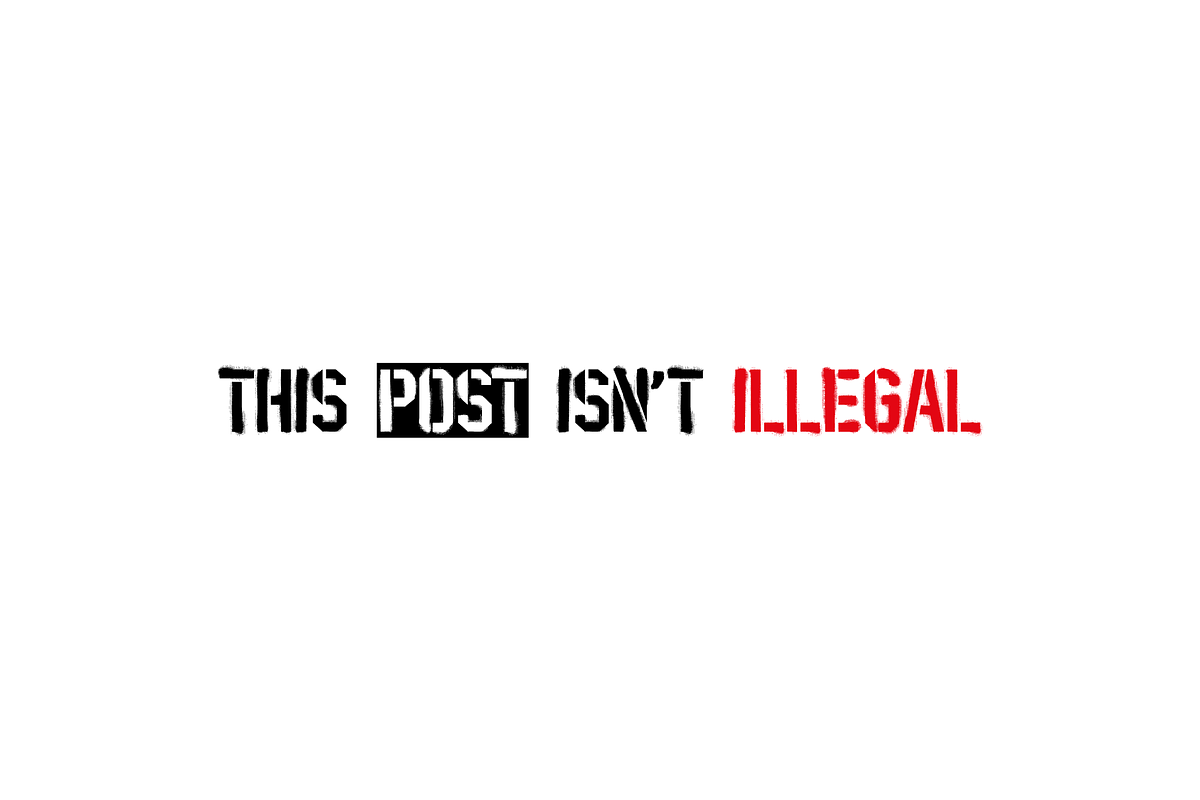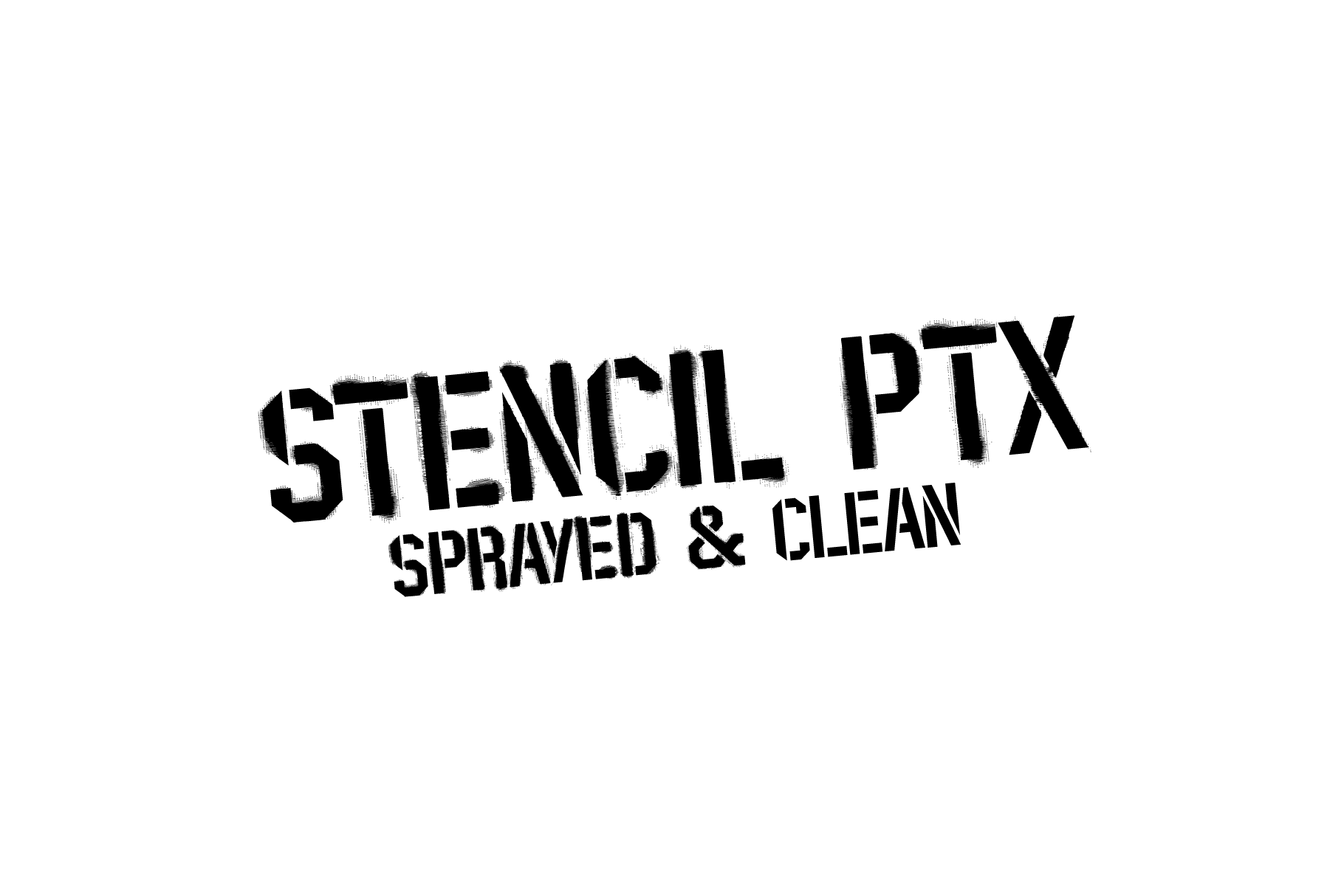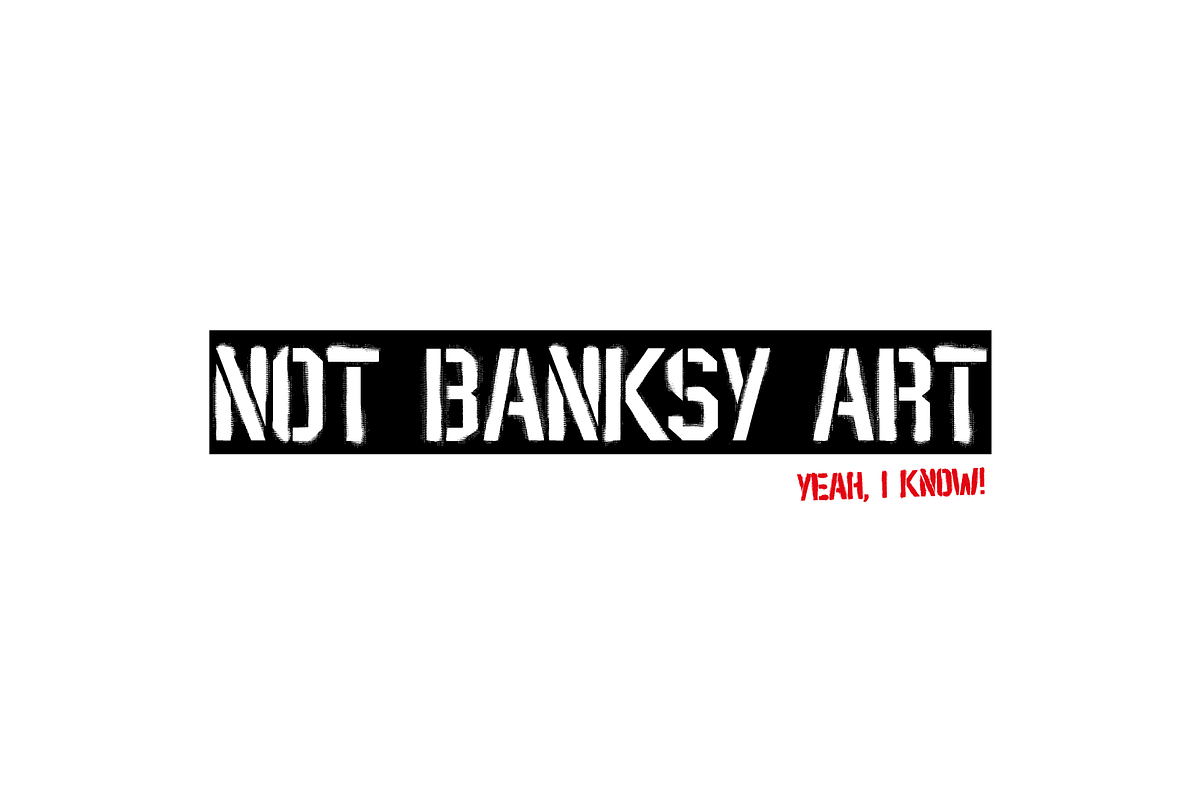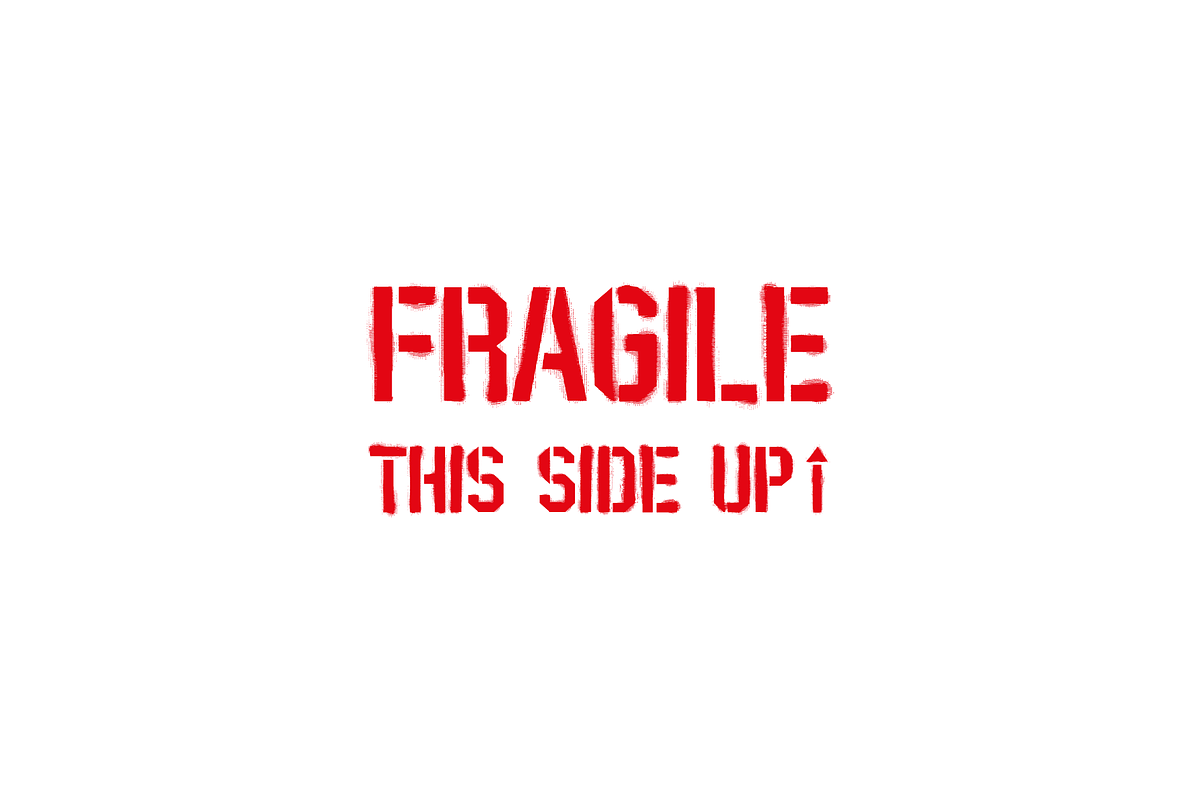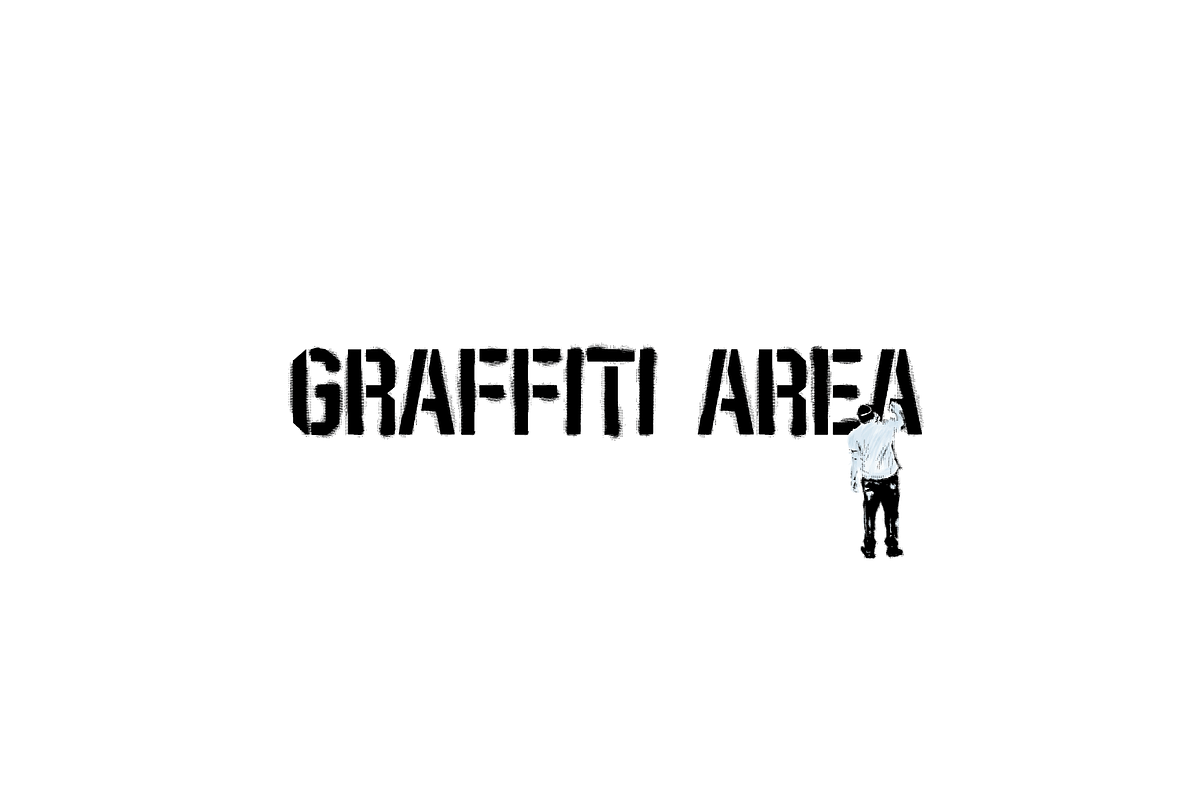
Stencil PTx font family
Introducing the Stencil PTx font family. We created two styles, sprayed, to be used in display giving the idea of graffiti on the wall and the clean, to possibly be used in print. This is the idea We have of an old school stenciled typeface/look. This typographic masterpiece brings the raw energy and urban flair of stencil graffiti art to your fingertips.
The Stencil PTx font family is tailored for designers seeking to infuse their projects with the rebellious spirit and visual impact of street art. Whether you're designing for urban-themed events, streetwear branding, social media graphics, or edgy advertising campaigns, this font family adds an authentic urban edge to your creations.
At Pedro Teixeira Foundry we're passionate about bringing the raw and vibrant energy of street art into the realm of typography. Explore the Stencil PTx font family to unleash the bold, gritty, and dynamic essence of stencil graffiti, elevating your designs with an urban attitude that commands attention and amplifies your message.